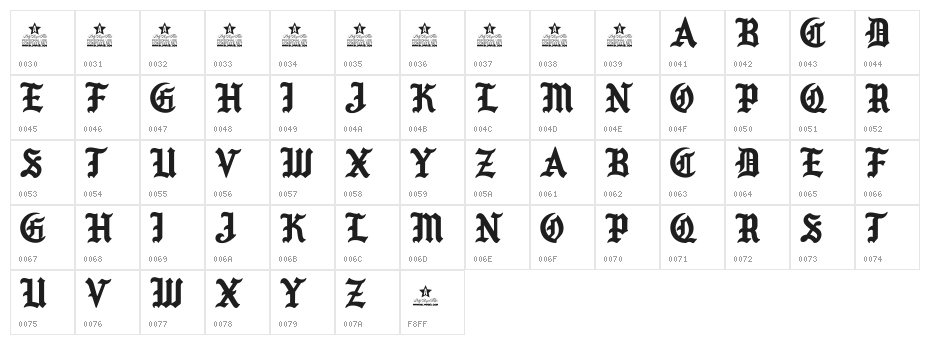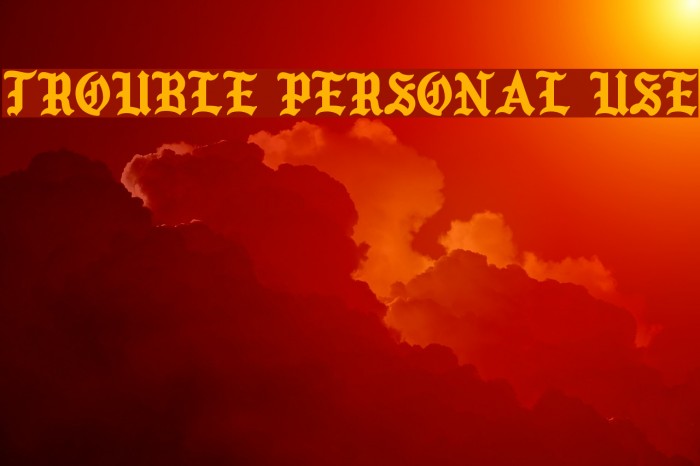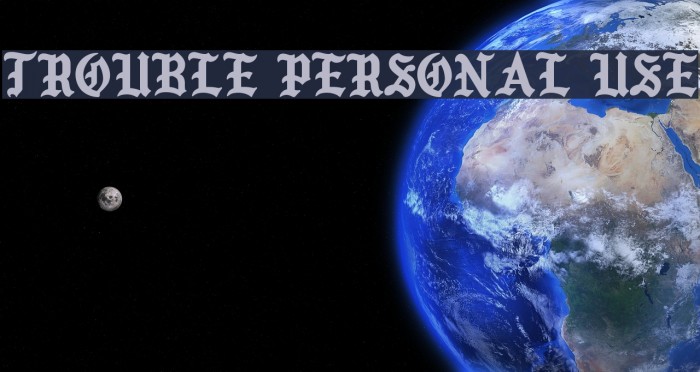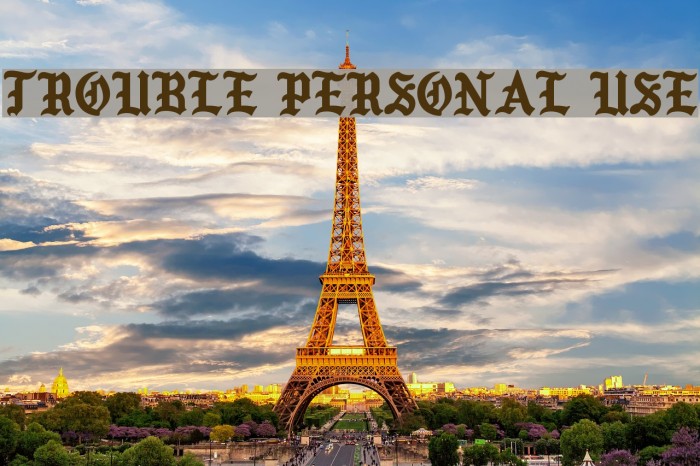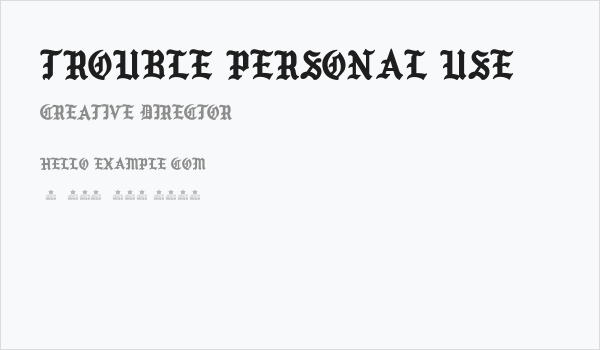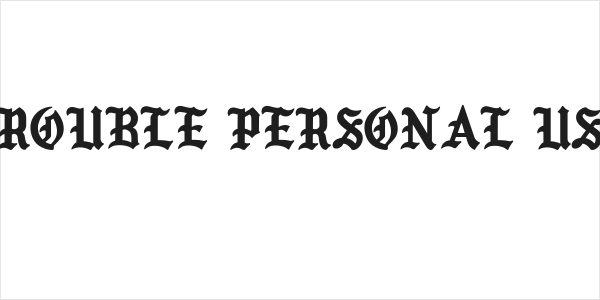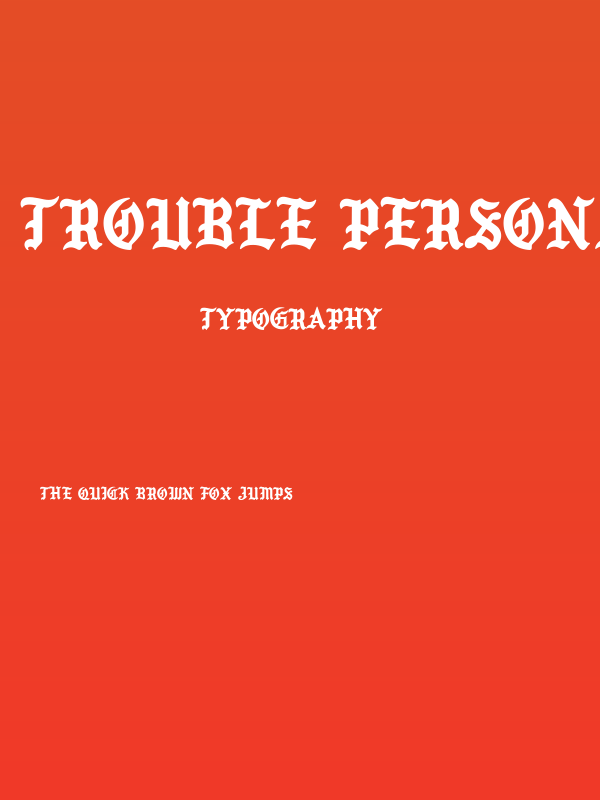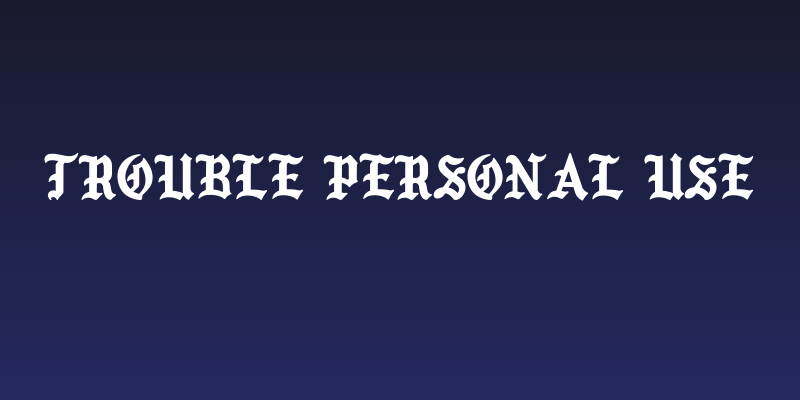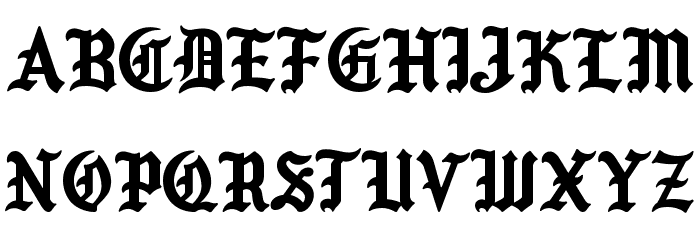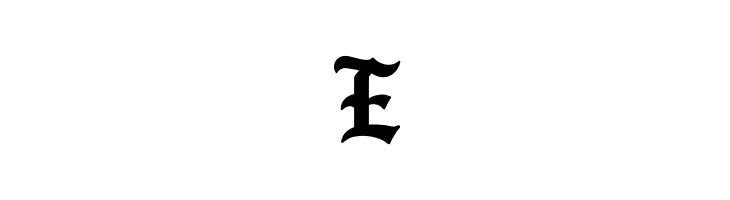
TROUBLE Personal Use Font
TROUBLE Personal Use Description
This font features a bold and dramatic style, characterized by its intricate and angular letterforms reminiscent of traditional Gothic script. The uppercase letters are particularly striking, with sharp edges and elaborate serifs that give a sense of historical depth and grandeur. The font's design is consistent across all characters, maintaining a uniform weight and style that enhances its readability despite the complex forms. The overall appearance is both authoritative and artistic, making it suitable for projects that require a strong visual impact.
| Proposed Projects | Ideal for use in branding, posters, album covers, and any design project that seeks to convey a sense of tradition and strength. |